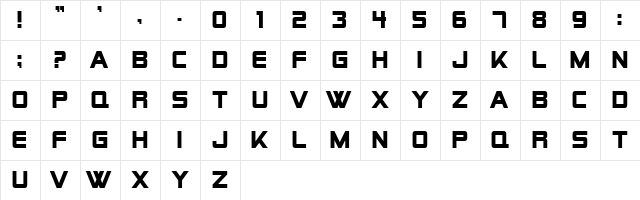
Alien Encounters Solid Bold
Design Context for Alien Encounters Solid Typeface
Alien Encounters Solid is a composed and adaptable typeface that performs quietly and consistently across a wide range of design contexts. Its bold stroke weight gives it real presence on the page.